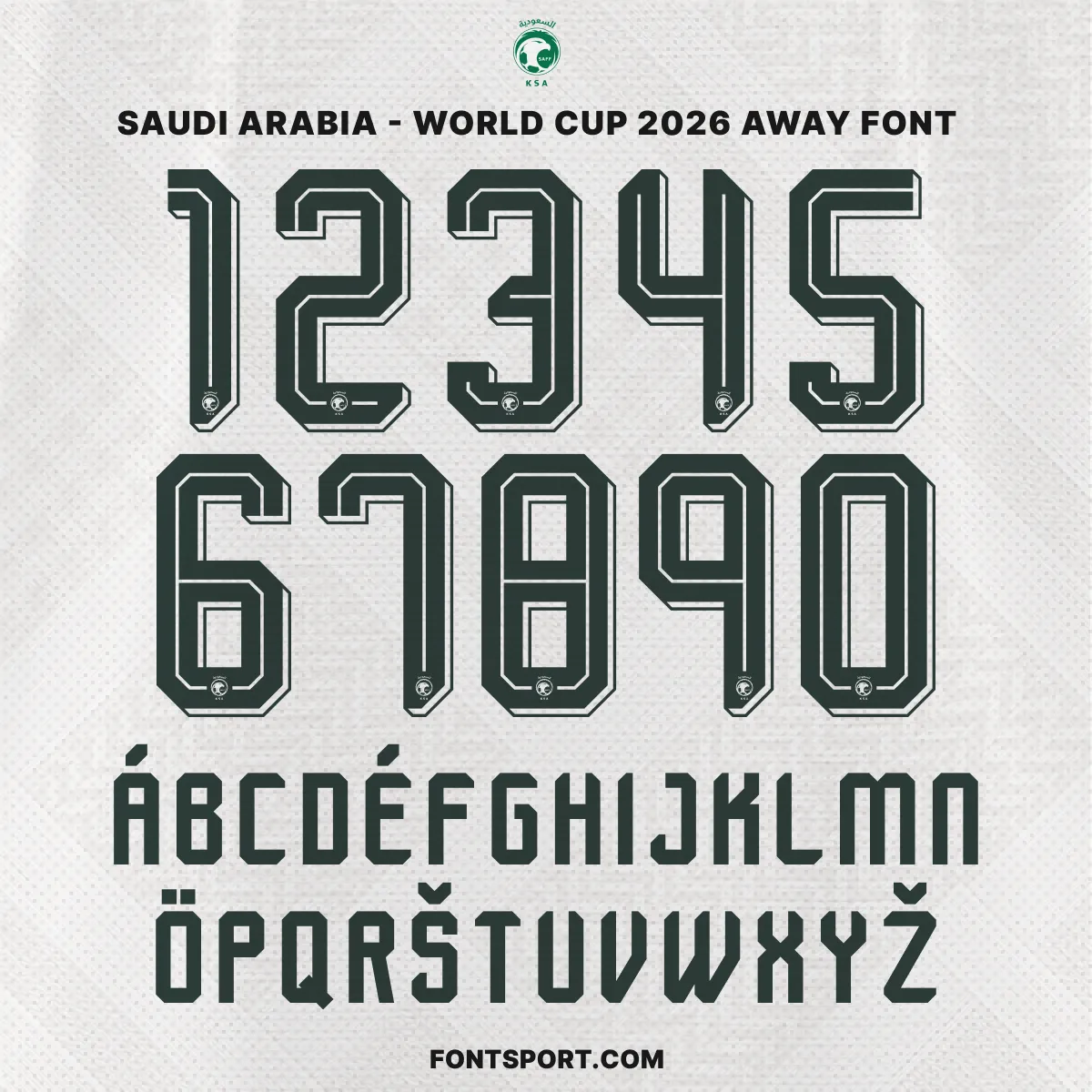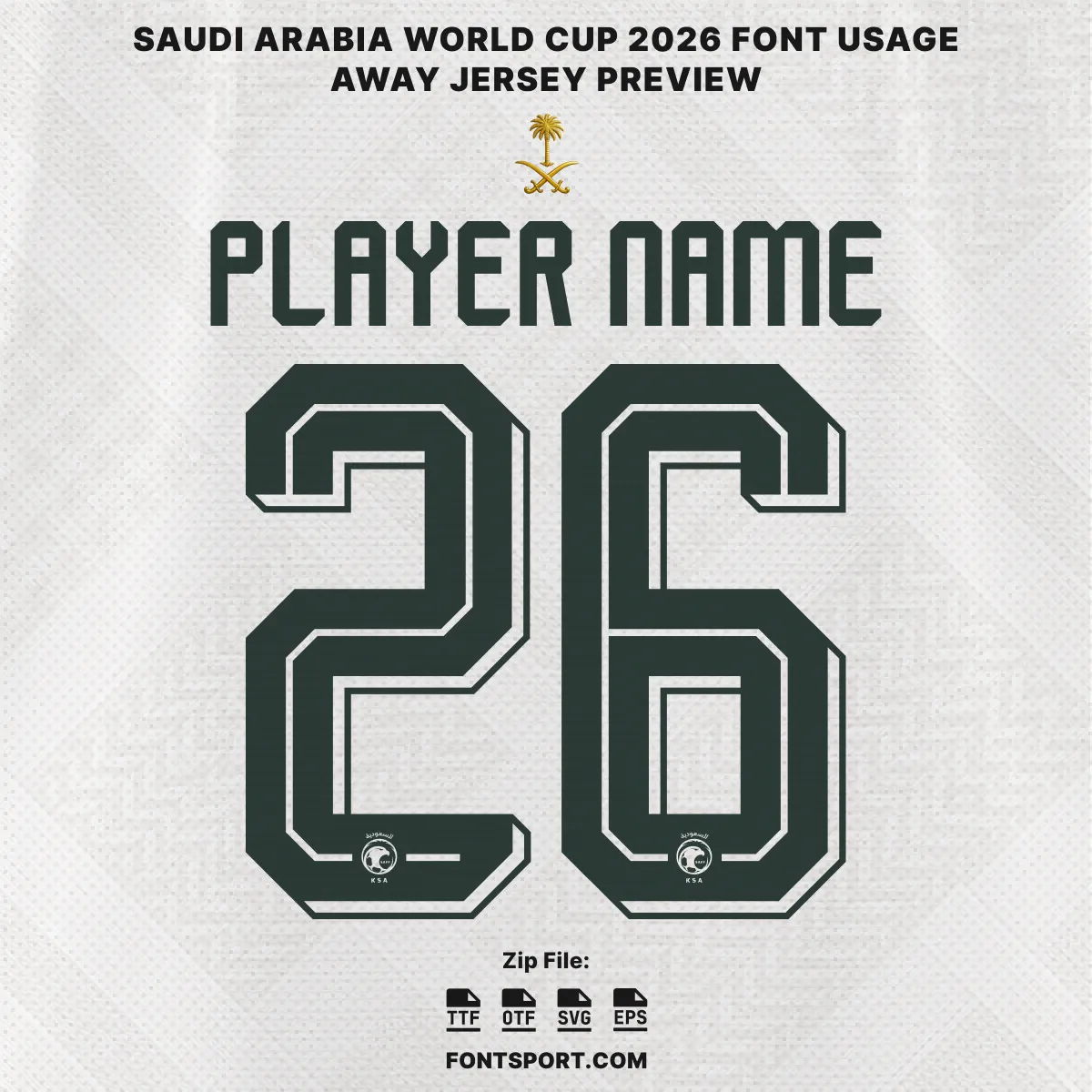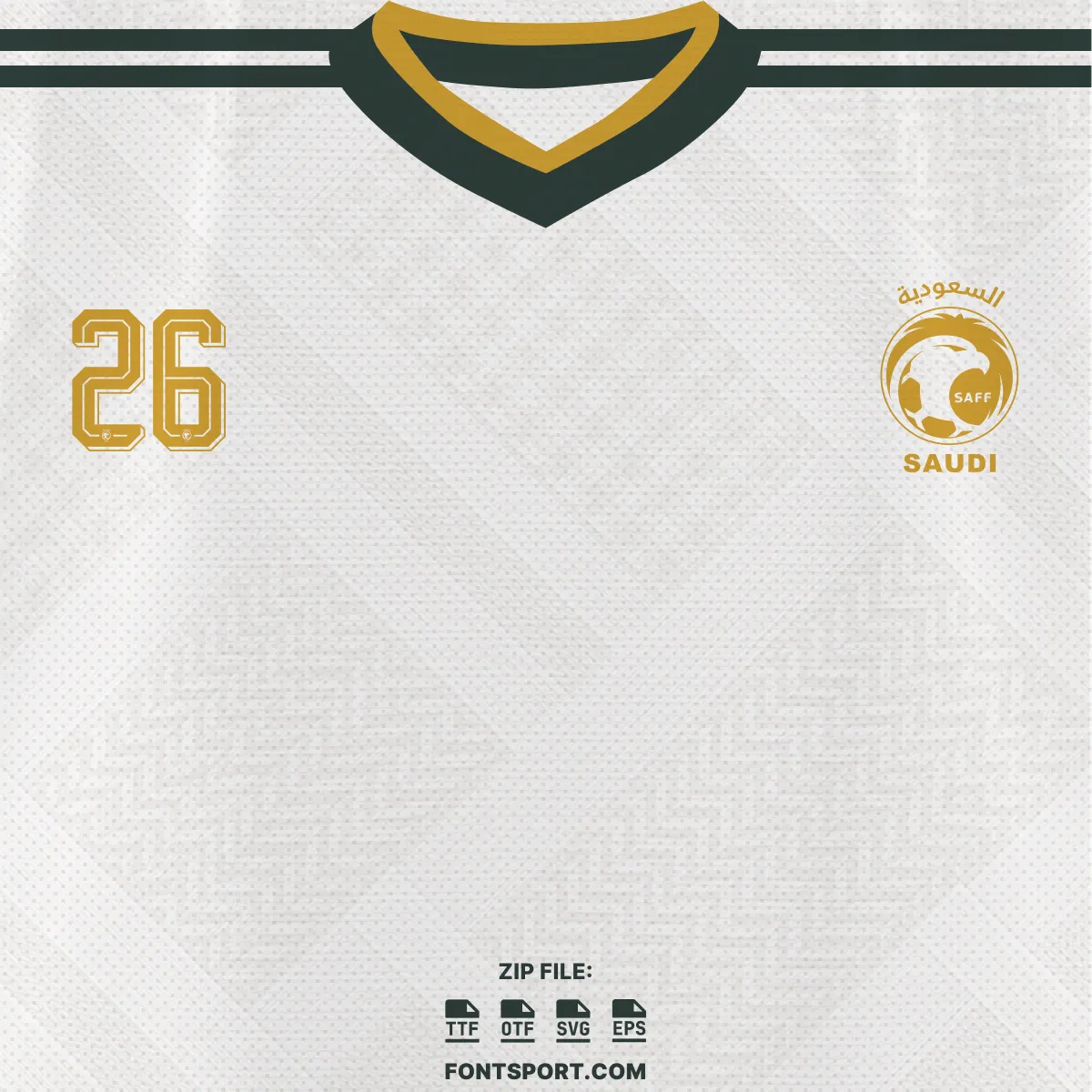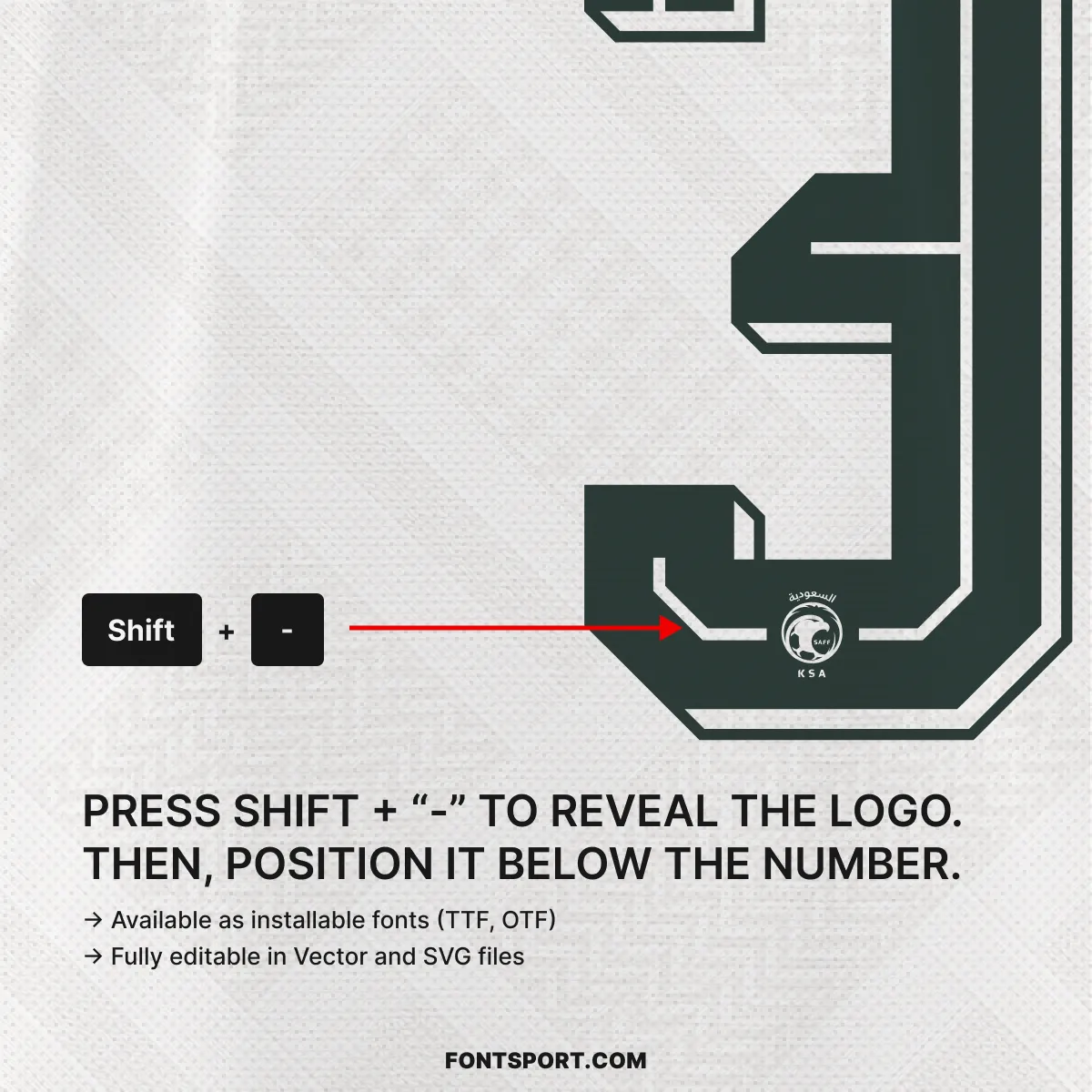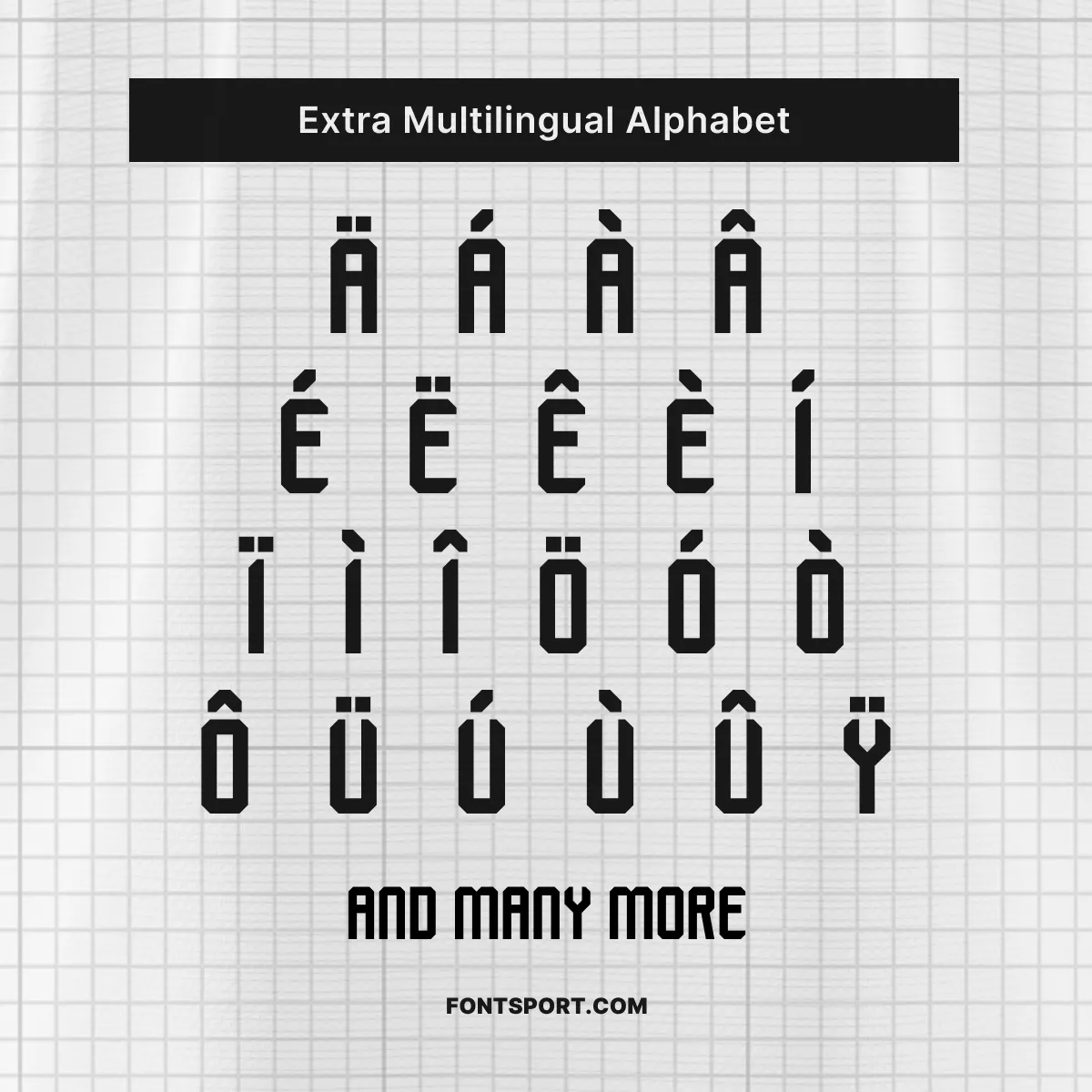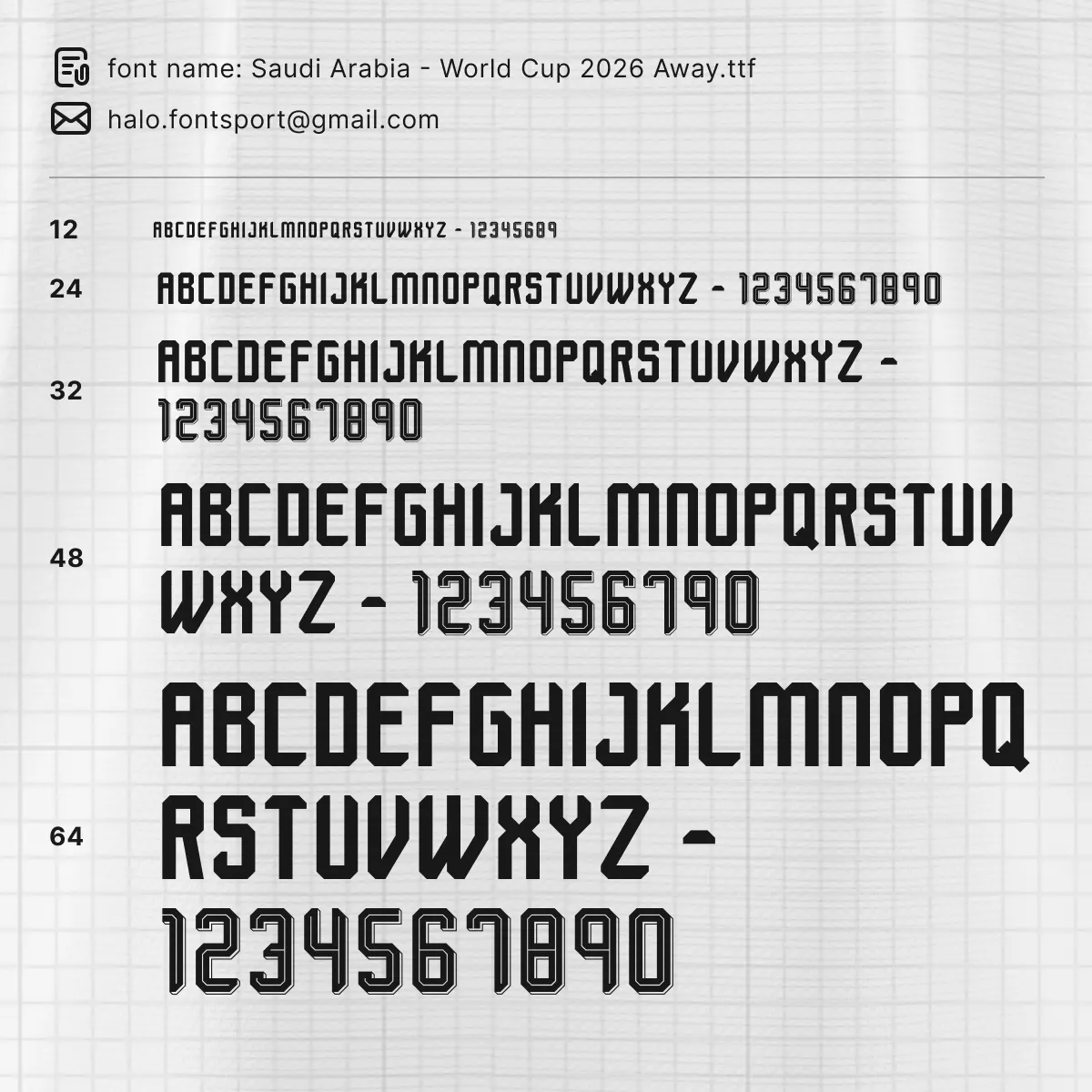
Saudi Arabia Font Kit World Cup 2026 Away – Authentic Green Falcons Typeface
Few national teams carry the same electric momentum into a tournament as Saudi Arabia. The Saudi Arabia World Cup 2026 Away Font Kit captures the match-accurate letterforms and number style worn by the Green Falcons across their 2026 FIFA World Cup campaign — the nation’s seventh appearance at the tournament and third consecutive qualification. Furthermore, this kit marks a landmark moment: Saudi Arabia step onto the world stage in North America having produced one of the competition’s most celebrated upsets at Qatar 2022, defeating eventual champions Argentina. This font is the designer’s faithful companion to that story.
The away jersey itself is a standout in the adidas 2026 collection. It features a pearlescent white base inspired by traditional Saudi weaving patterns, with royal gold detailing on the crest, Trefoil logo, and neckline, and deep green number highlights. This font kit mirrors that visual identity precisely — built for those who want their jersey graphics to look exactly as they do on the pitch.
Key Visual Identity of the Font
Typography Style
The lettering carries a confident, wide-set stance with strong block construction and chamfered corners — a modern football typeface rooted in structure and legibility. Each character holds its weight at any scale, from chest numbers on a full-size mockup to thumbnail-sized badge previews.
Number Design
The numerals are particularly striking. Bold double-outline detailing gives each digit a layered, three-dimensional presence — immediately recognisable on the back of a White Falcons shirt. Moreover, the SAFF crest glyph, accessible via Shift + “–”, sits beneath each number for a fully authentic presentation.
- ✅ Full uppercase A–Z & numbers 0–9 in the Saudi Arabia 2026 Away match-accurate style
- ✅ SAFF crest glyph — press Shift + “–” to reveal and position below the number
- ✅ Extended multilingual Latin alphabet with diacritics (Á, É, Ö, Š, Ž and many more)
Why Designers & Fans Choose This Font Kit
- ⚽ Create World Cup jersey mockups featuring Salem Al-Dawsari, Firas Al-Buraikan, or any Green Falcons squad player
- 🎯 Design matchday posters, squad announcement graphics, and Group H preview content
- 🛍️ Produce custom Saudi Arabia fan merchandise that looks authentic and pitch-perfect
- 📱 Build social content for Instagram, TikTok, and X around Saudi Arabia’s World Cup campaign
- 🏆 Replicate the iconic away shirt complete with SAFF crest — ideal for both home and away number treatments